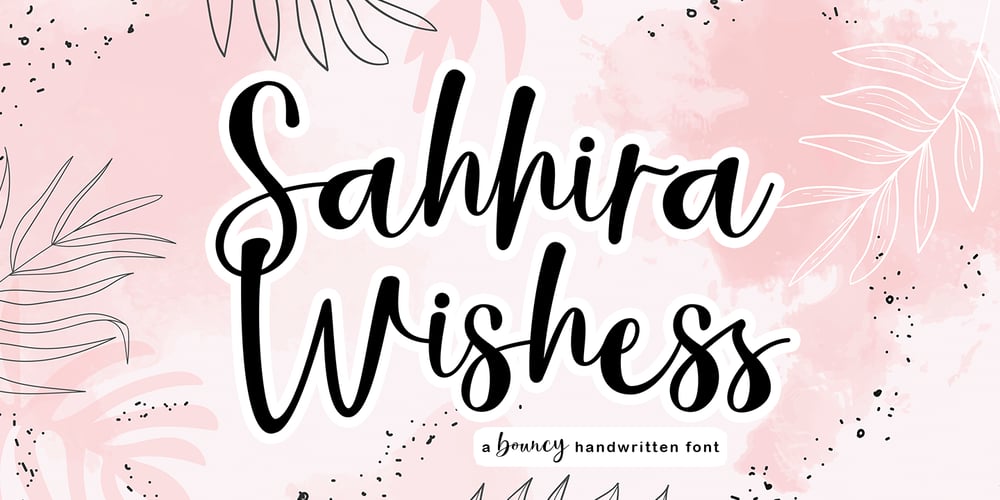
Sahhira Wishess Font Family was designed by Sidiq Fahmi and published by Rotterlab Studio. Sahhira Wishess contains 1 styles and family package options. Proudly Present, Sahhira Wishess Font.Sahhira Wishess is a Modern Handwritten Font.Sahhira Wishess is perfect for product packaging, branding project, megaazine, social media, wedding, or just used to express words above the background.Sahhira Wishess also multilingual support.Enjoy the font, feel free to comment or feedback, send me PM or email.Thank you!